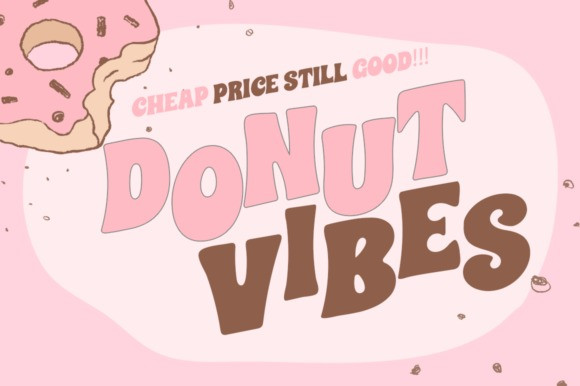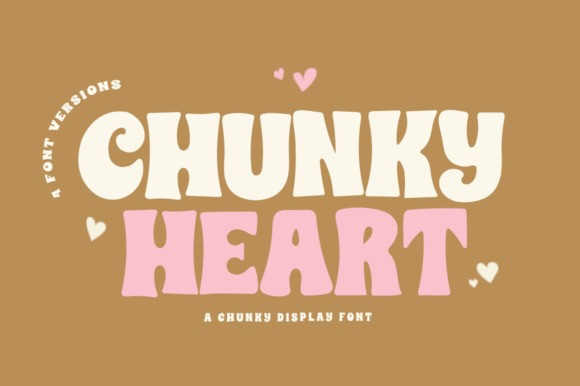
Chunky Heart Font
Chunky Heart Display Font is a fun and charming display font. It embodies playfulness and originality and is the perfect choice for kids’ activities or school projects, clothing, food posters, and birthday cards.